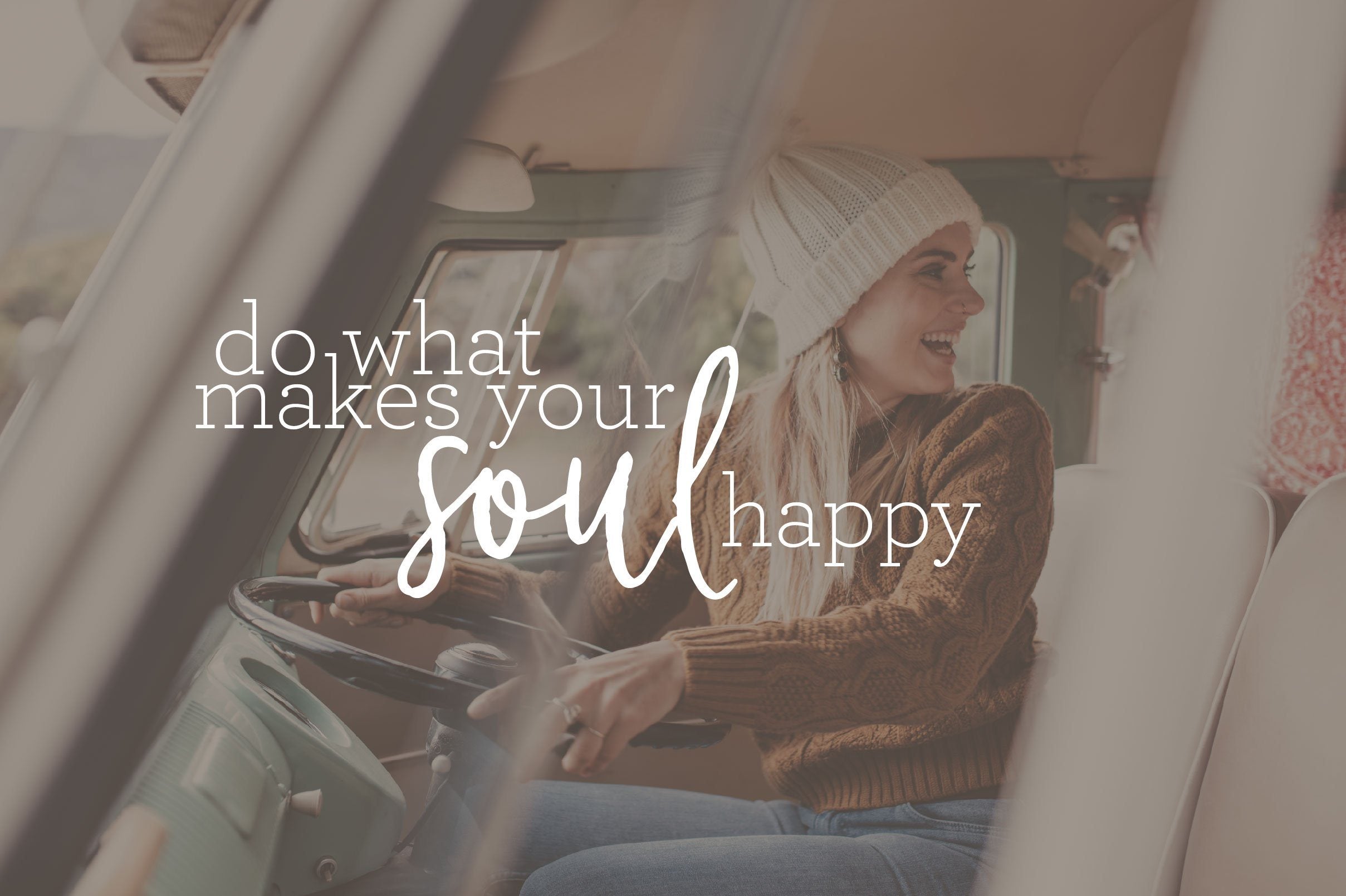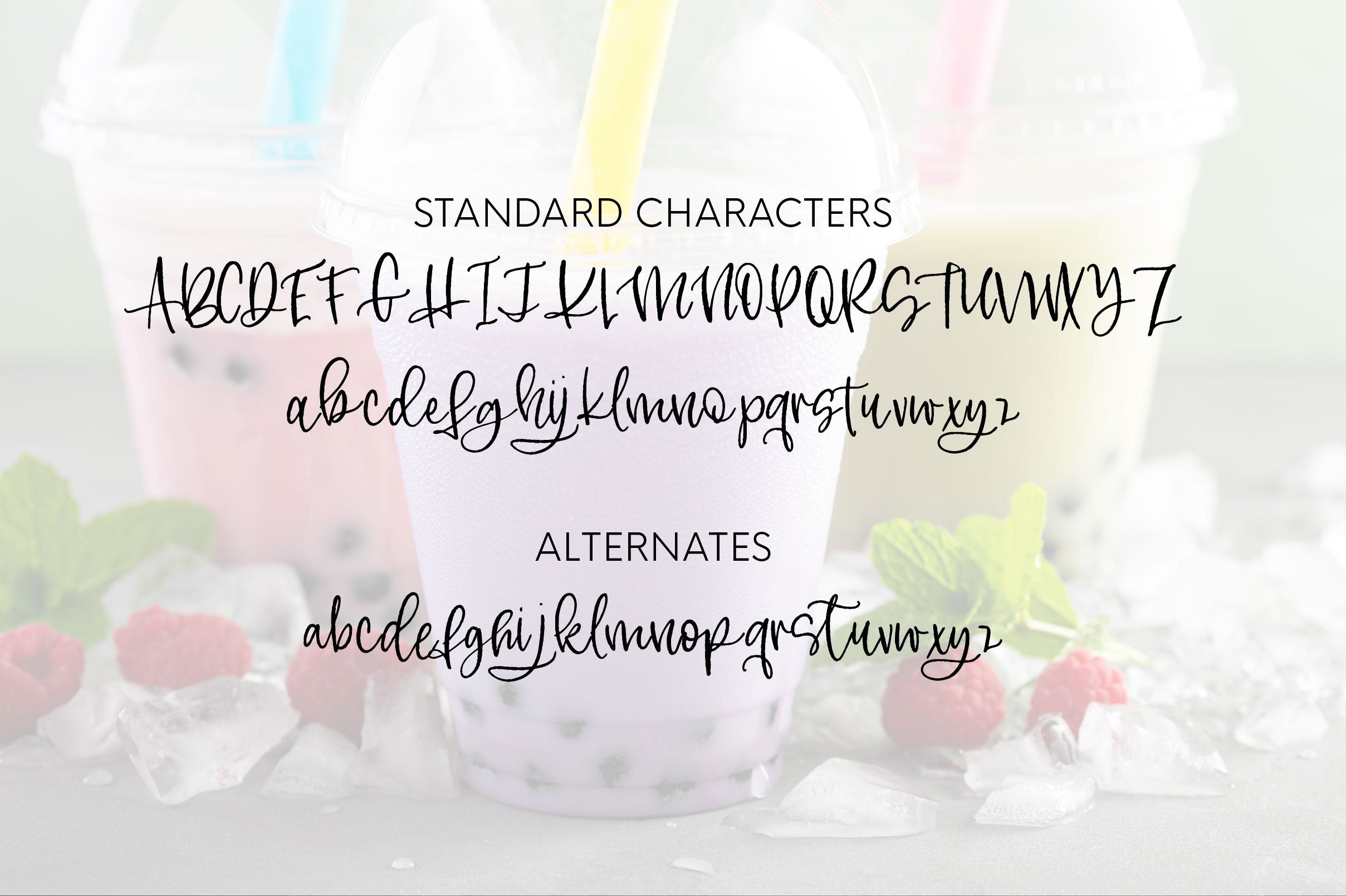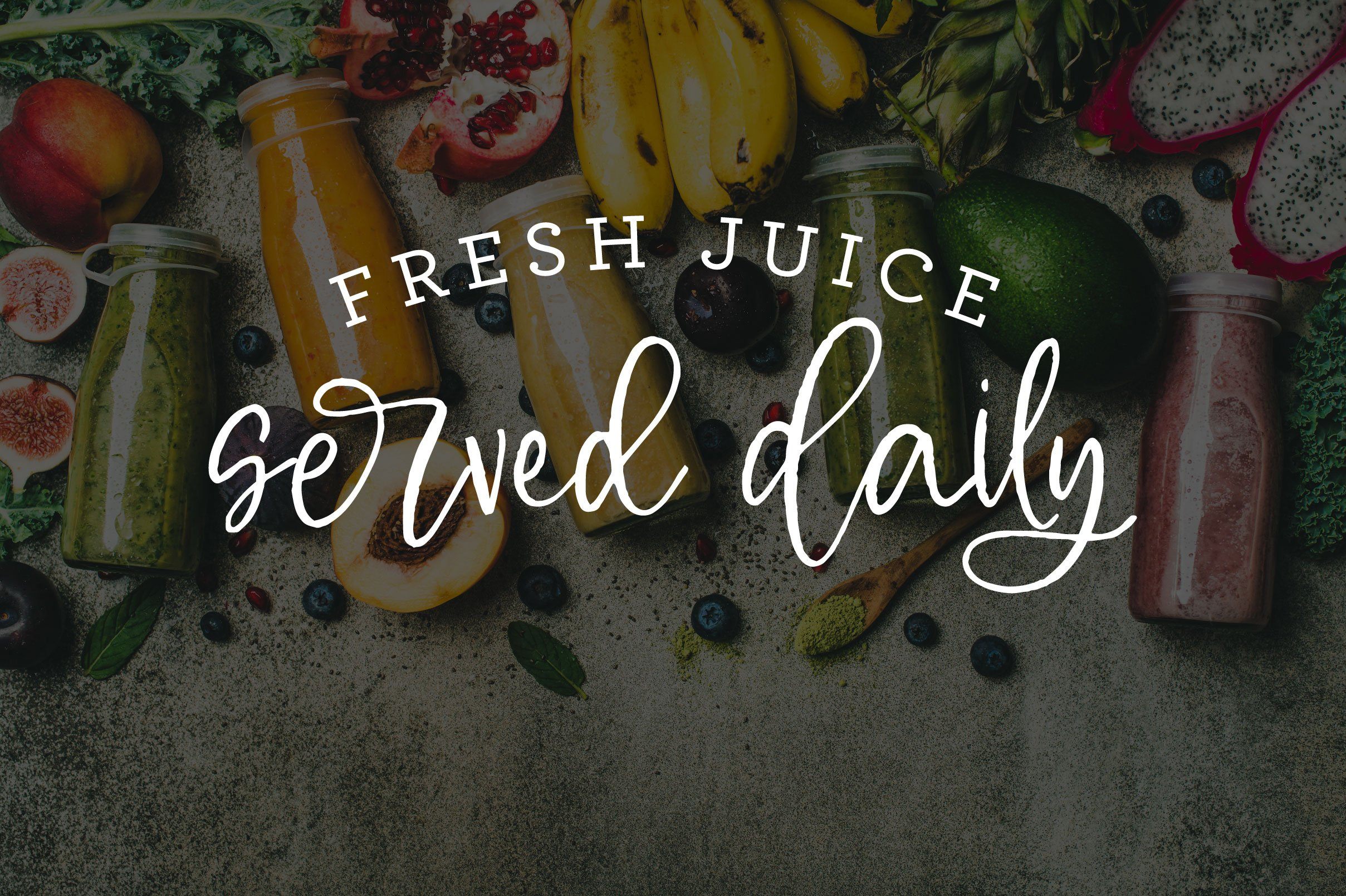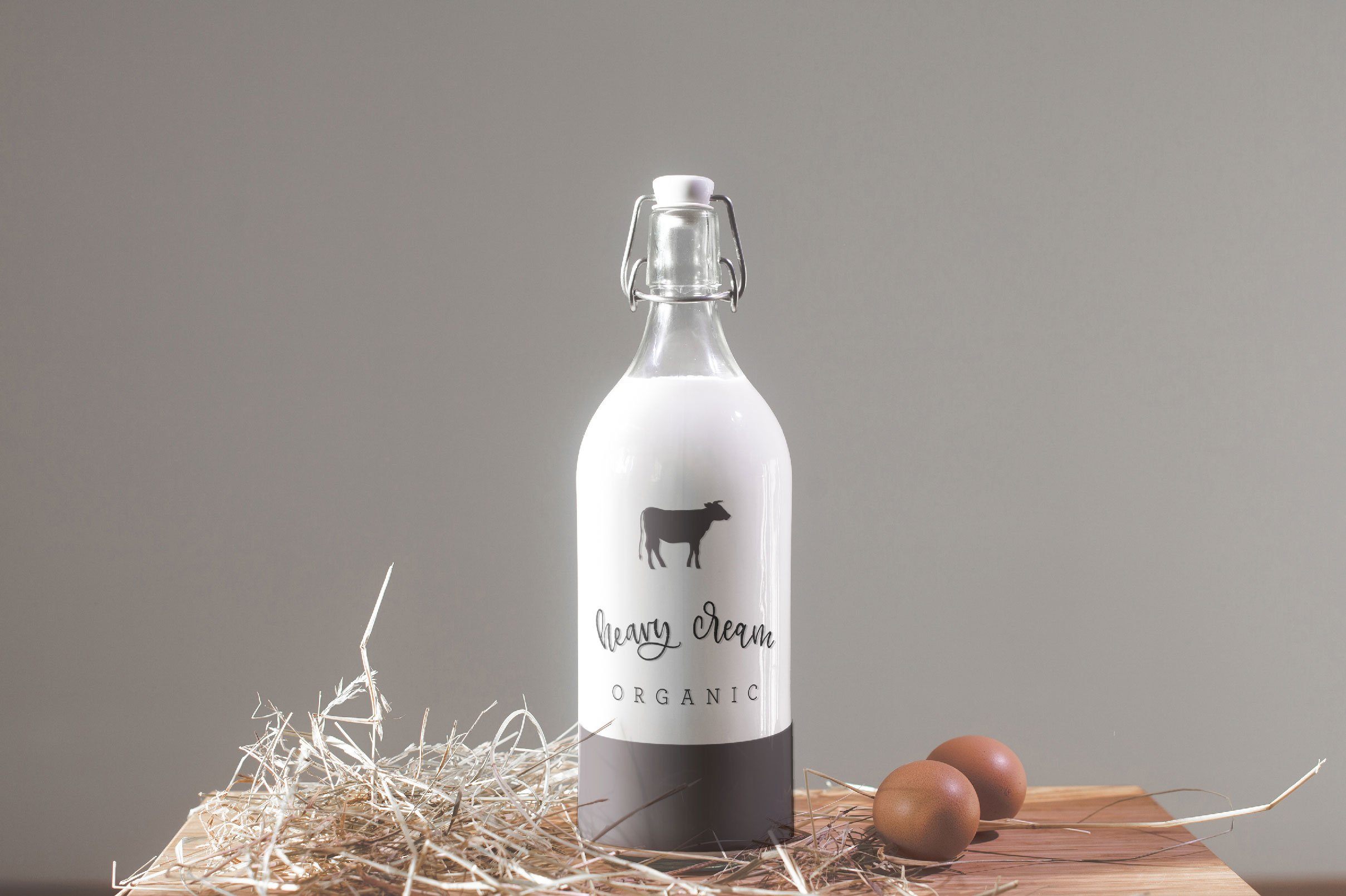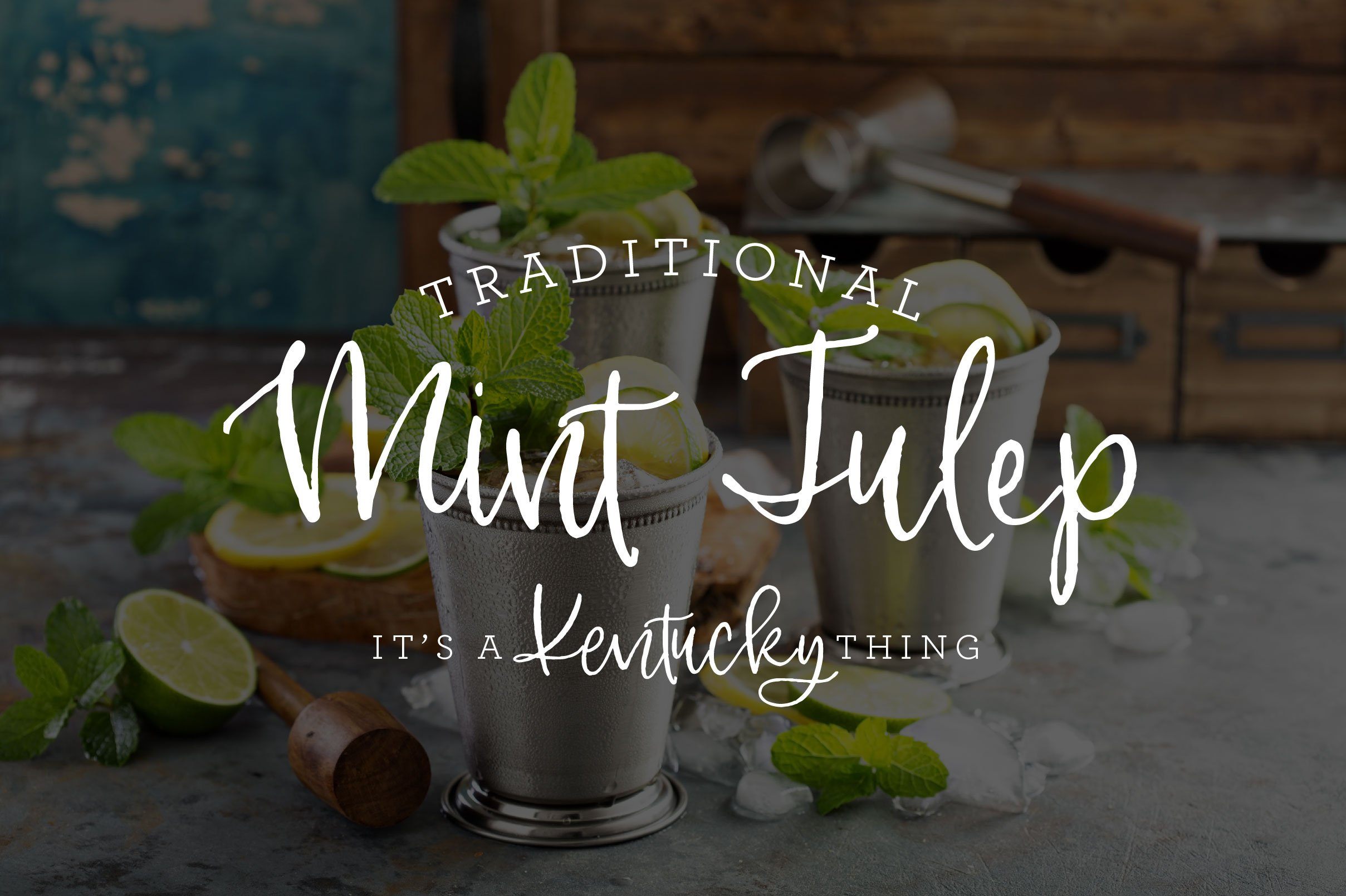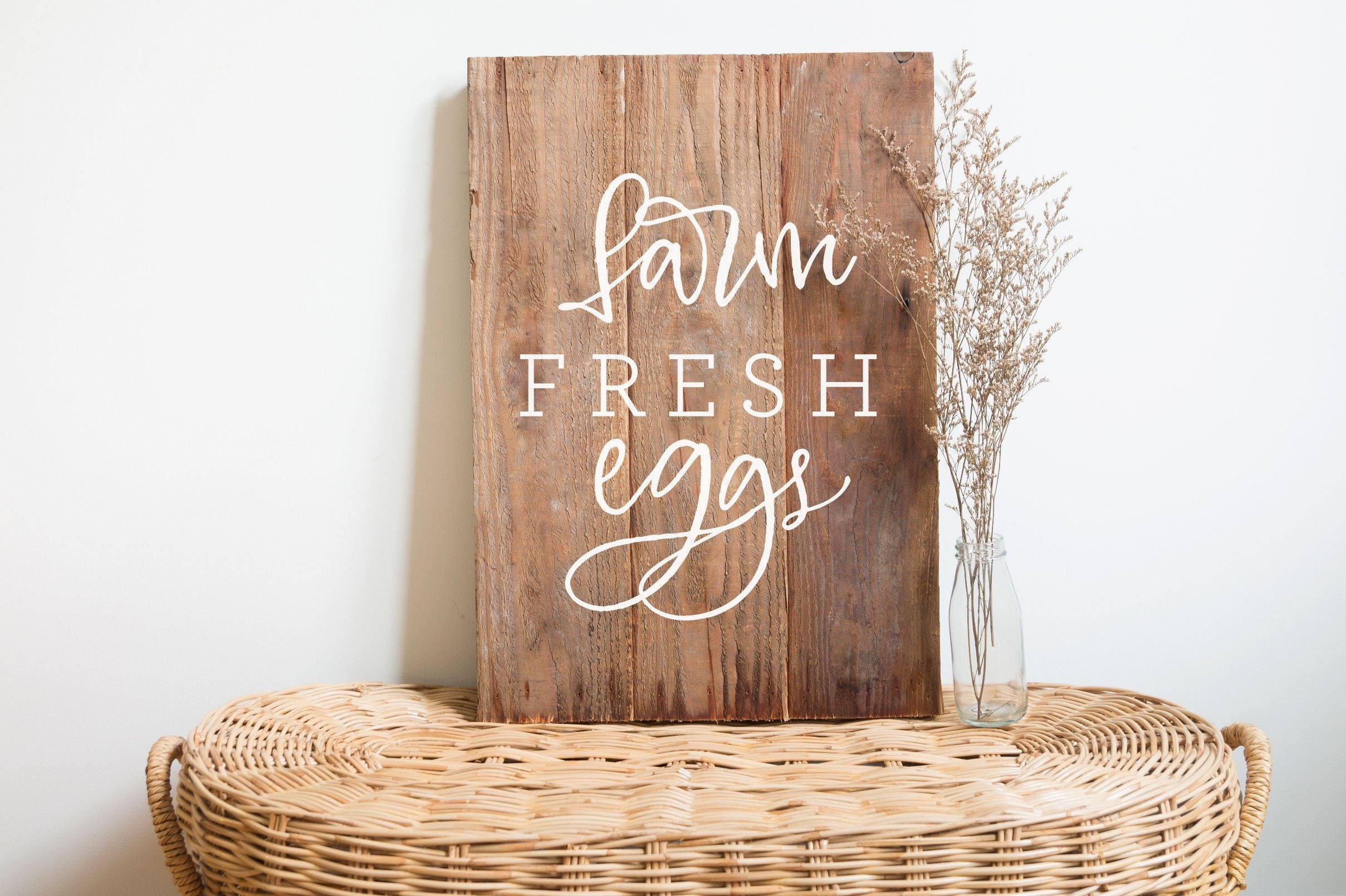
About MilkTea
introducing the newest script from OTSS : MilkTeaMilkTea is based loosely on my personal hand lettering, including a lot of alternates and ligatures. You will need open type software (or software that allows you to access your glyphs or character map) in order to utilize MilkTea to its fullest!What’s Included:-MilkTea .otf-50+ ligature combos for even more unique lettering -FULL set of lowercase alternates -14 Handlettered Rustic Words in SVG format for use on crafting and other materials! Enjoy and I hope you love MilkTea as much as I do! Commercial Use OK. Enjoy and I hope you love MilkTea as much as I do!